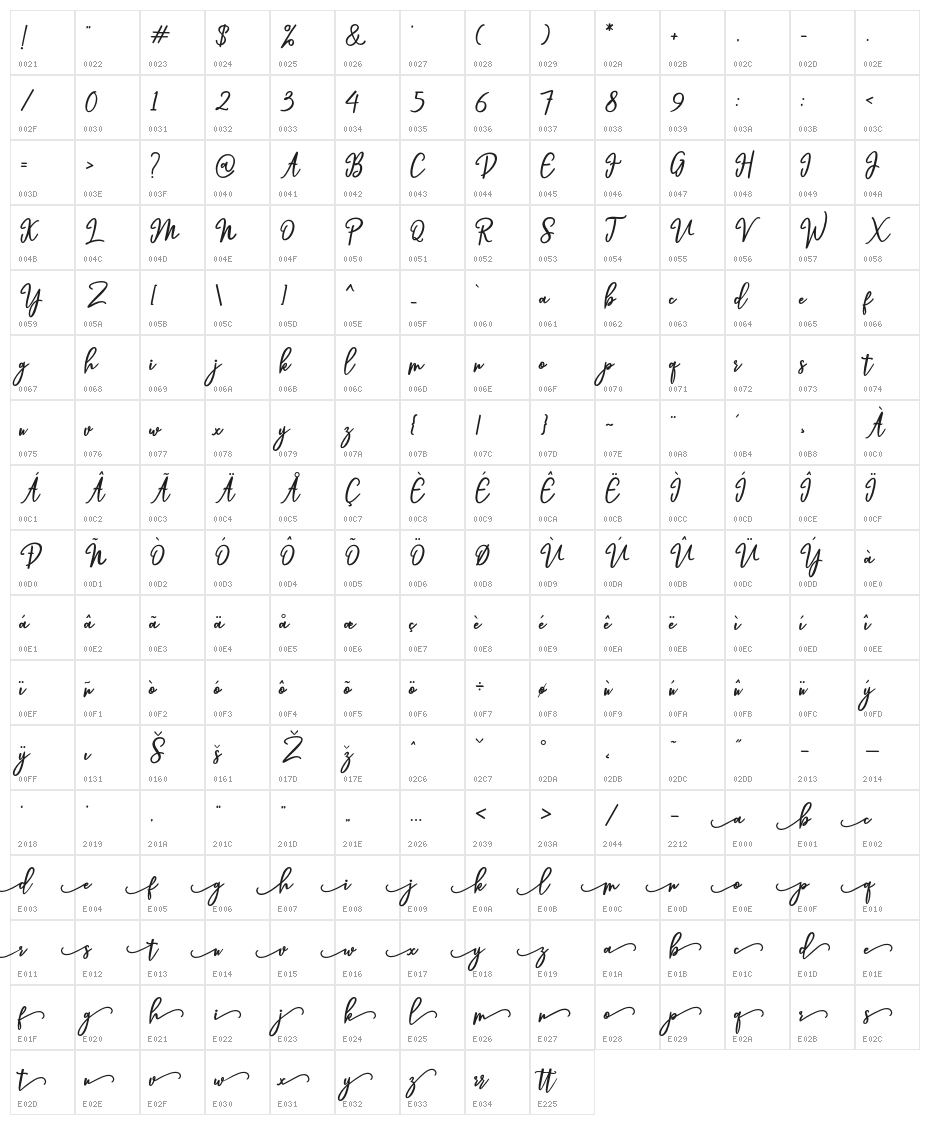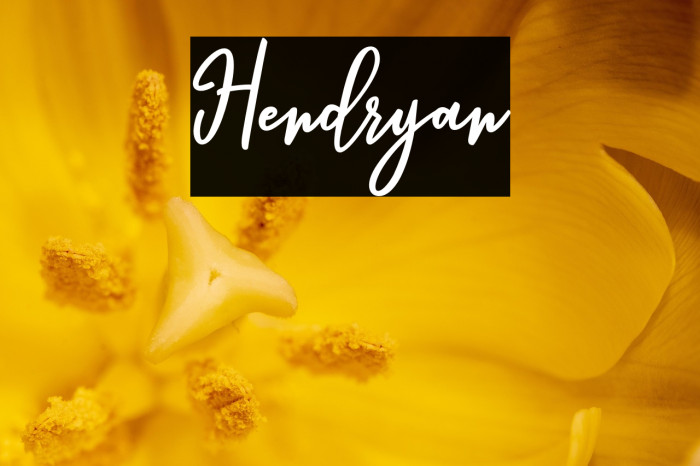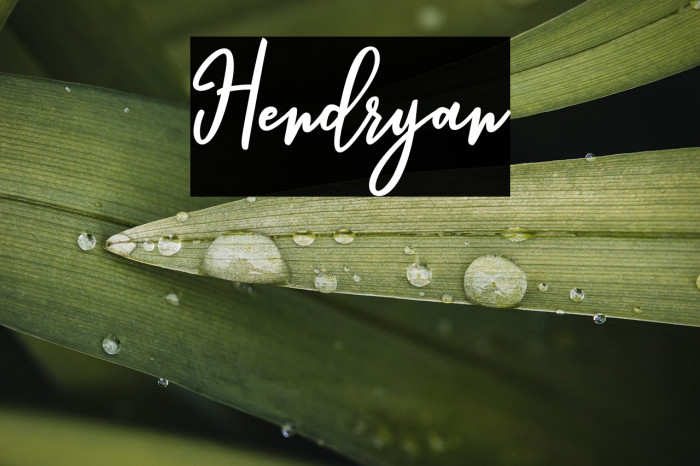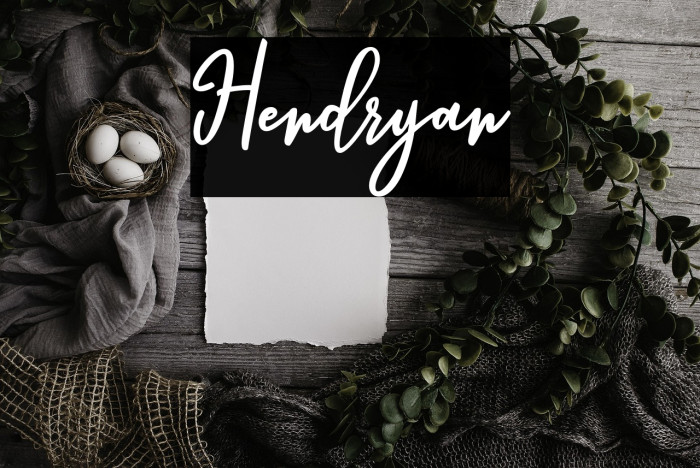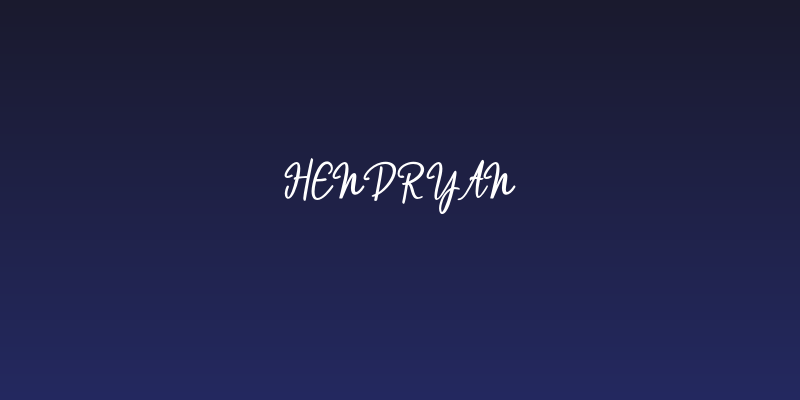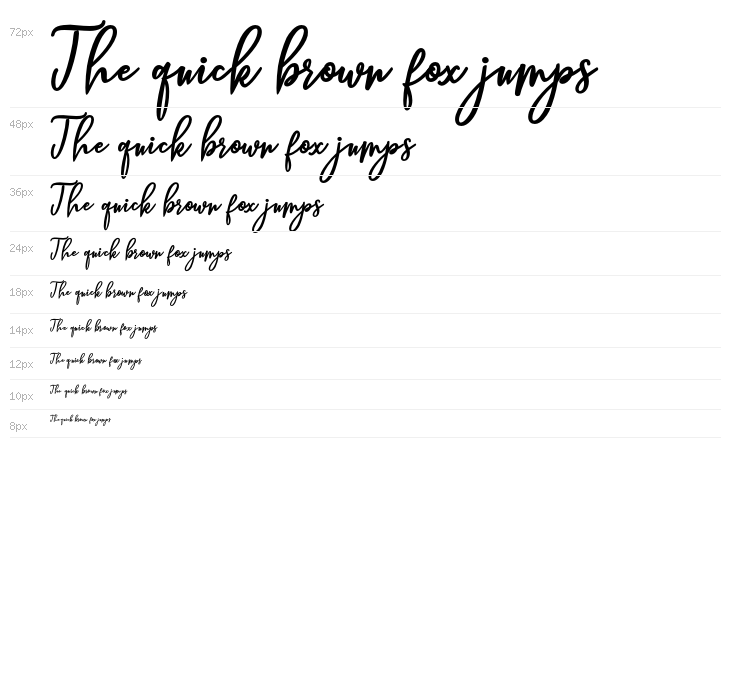
Hendryan Font
Hendryan Description
This font exudes a lively and elegant script style, characterized by its fluid and connected letterforms. The uppercase letters are bold and sweeping, with a sense of movement and grace, while the lowercase letters maintain a consistent flow that enhances readability. The numerals are distinct and maintain the same flowing style, making them easily recognizable. Special characters are integrated seamlessly, adding to the font's versatility. The overall design is both modern and timeless, suitable for a wide range of applications where a touch of sophistication is desired.
Use CaseLogos, Invitations, Branding
Proposed ProjectsIdeal for wedding invitations, greeting cards, branding projects, and elegant logo designs.